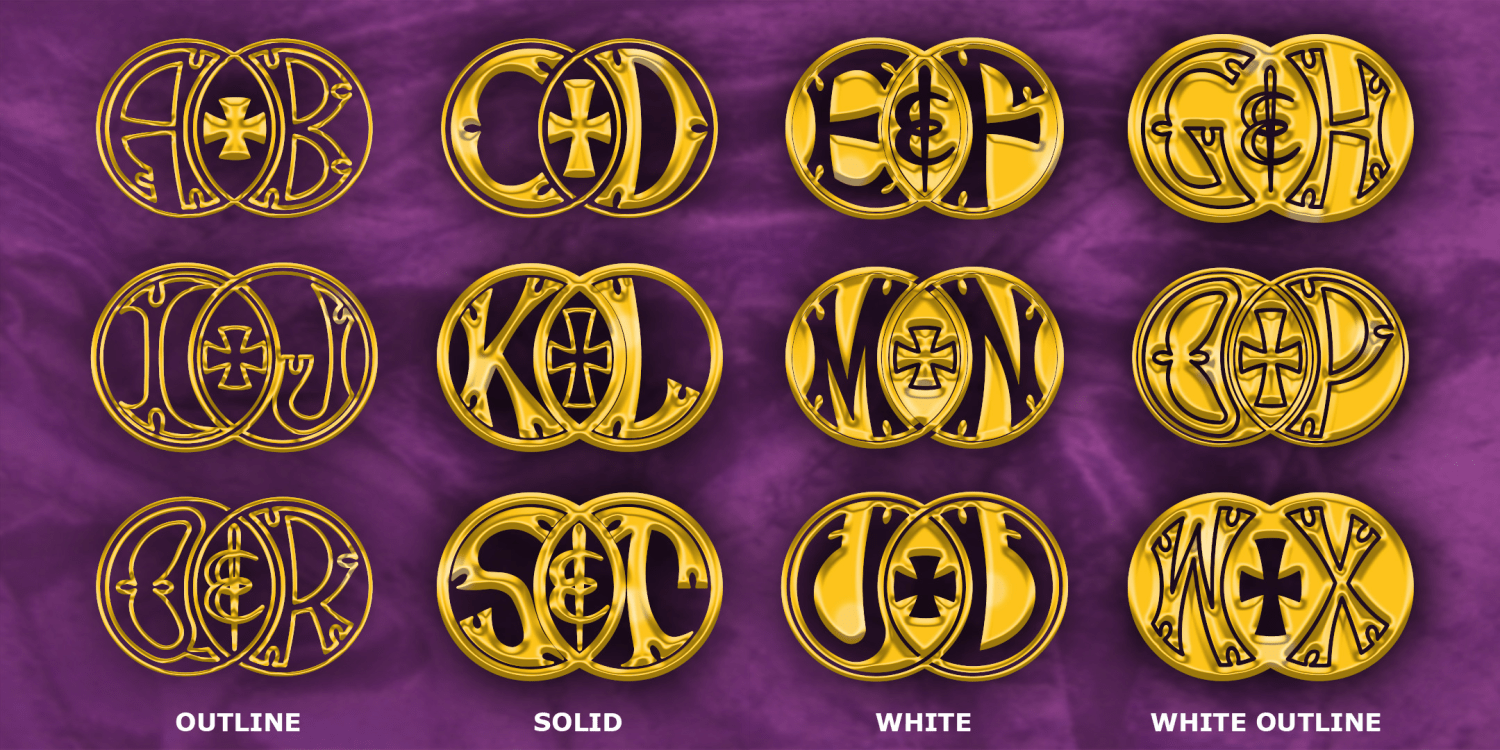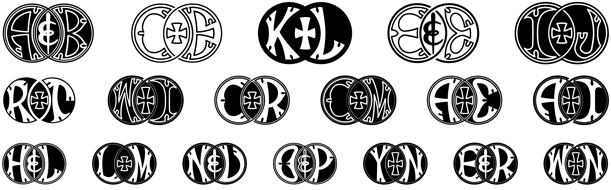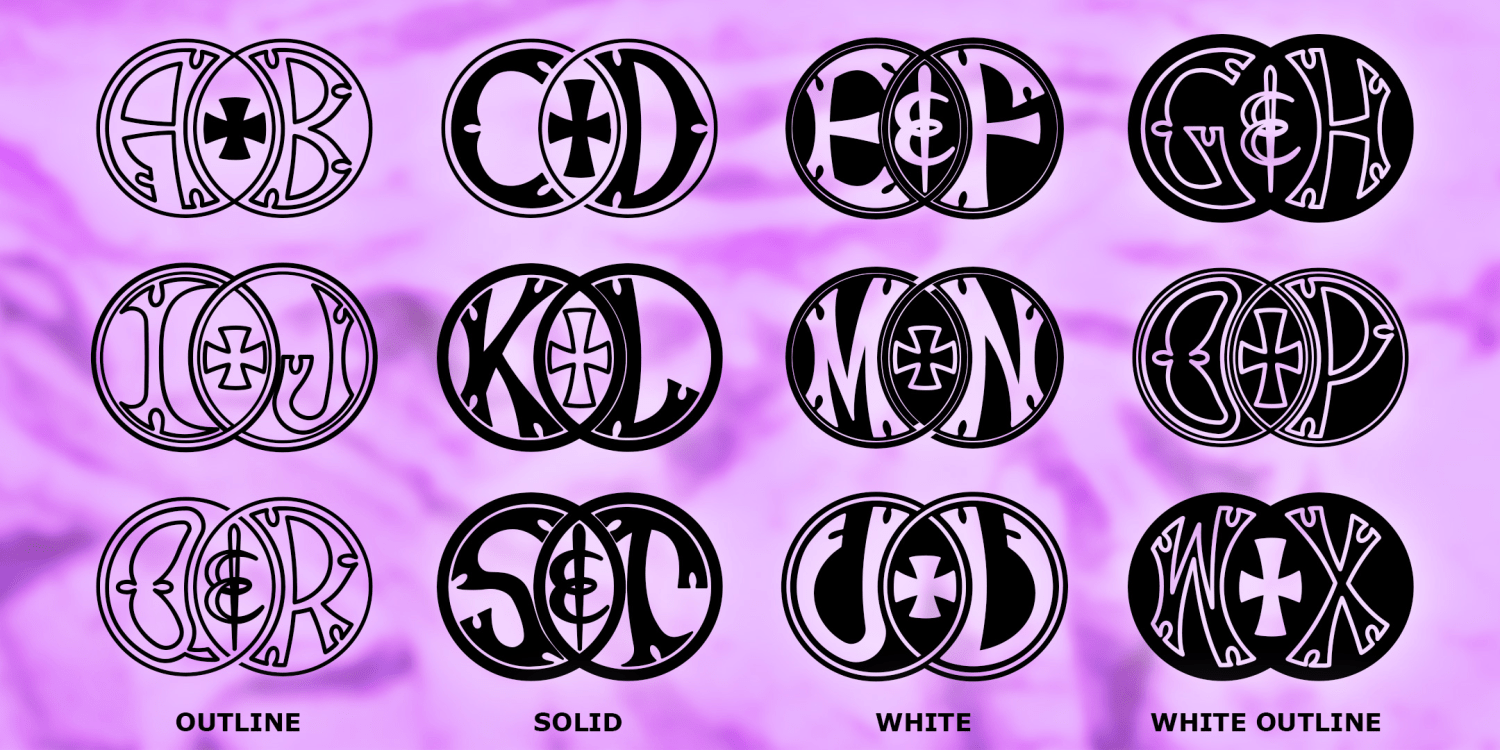
About Olden Rings
Olden Rings is a set of 4 fonts to make custom 2-letter monograms in a unique interlocking ring design with the style of antique metalwork and calligraphy.